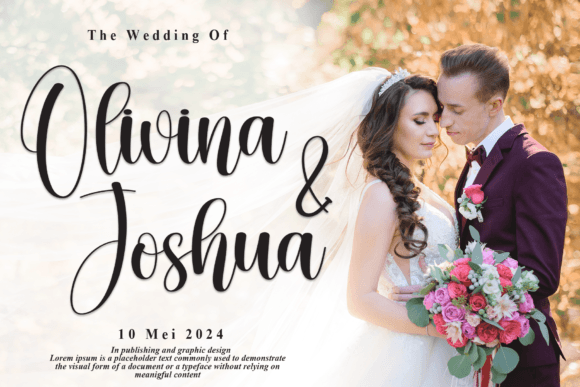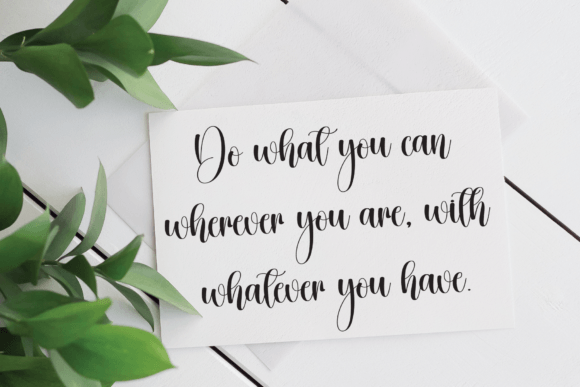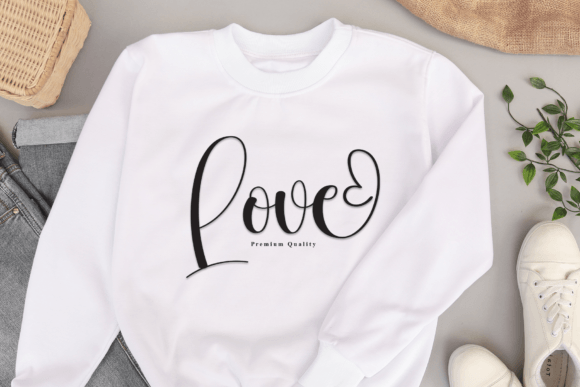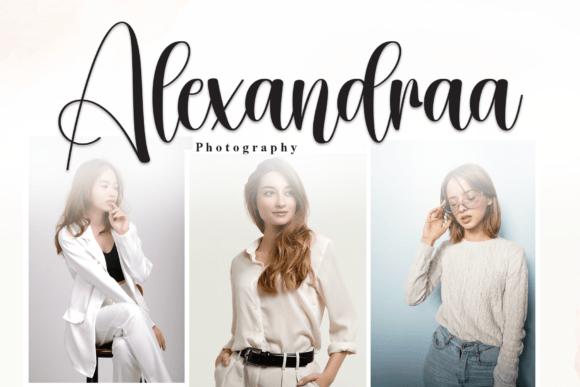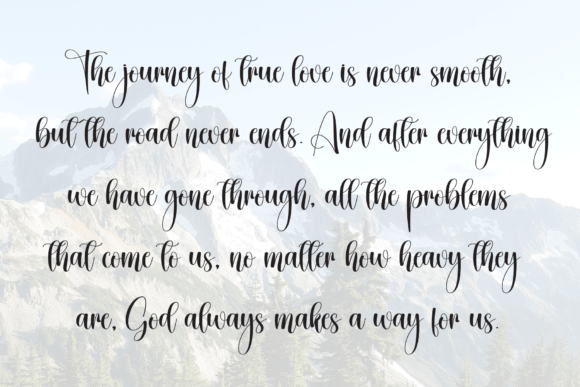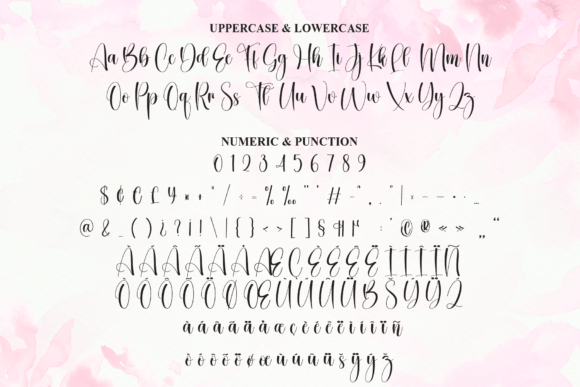
The Magical World of Barbie Font: A Designer’s Delight
I’ll never forget the time I was working on a project for a client who wanted a custom invitation for their daughter’s birthday party. I had spent hours browsing through font libraries, but nothing seemed quite right. That was until I stumbled upon the Barbie Font ✨. Its elegant, handwritten strokes and whimsical character instantly captured the playful essence of the party, and I knew I had found the perfect fit.
- ✨ Smooth, flowing strokes that give it an elegant feel
- ✅ Whimsical character that’s perfect for creative projects
- 💕 Versatile and suitable for a wide range of designs, from invitations to branding
- 👍 Easy to read and understand, even at smaller font sizes
A Few Quirks to Consider
While Barbie Font is an amazing addition to any design project, there are a few things to keep in mind ⚠️:
- 🤔 Legibility at very small sizes: While it’s generally easy to read, some of the more intricate details may get lost at very small font sizes.
- ⚠️ Overuse: As with any font, using Barbie Font excessively can make your design look cluttered and overwhelming.
- Explore stylistic alternates and swashes to add more flair to your design.
The Story Behind Barbie Font: Designer Inspiration
Legend has it that Barbie Font was created by a team of designers who wanted to craft a font that embodied the spirit of creativity and playfulness. Inspired by the iconic Barbie doll, they aimed to create a typeface that was both elegant and whimsical. The result is a font that’s perfect for designers, crafters, and creative hobbyists looking to add a personal touch to their projects.
Q: What makes Barbie Font so special?
A: Barbie Font’s unique blend of elegance and playfulness makes it a standout in the world of typography.
Q: Is Barbie Font suitable for body text?
A: While Barbie Font is beautiful, it’s best suited for headings and titles. For body text, you may want to choose a more legible font.